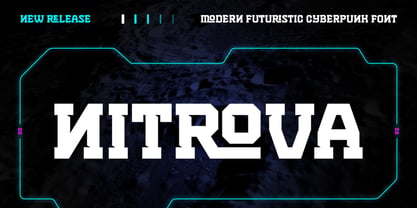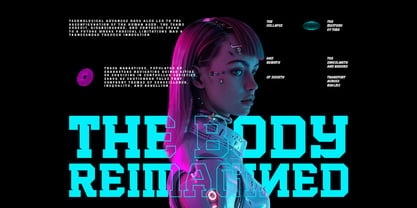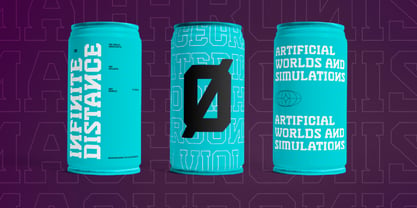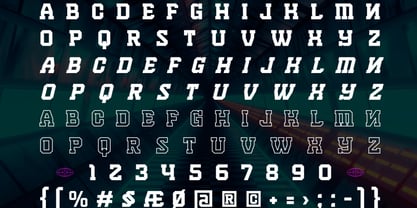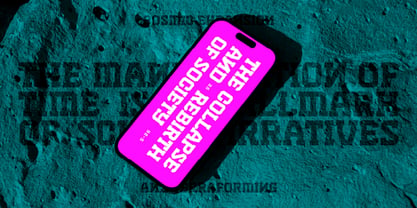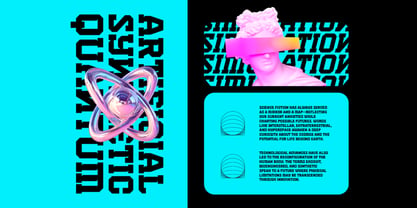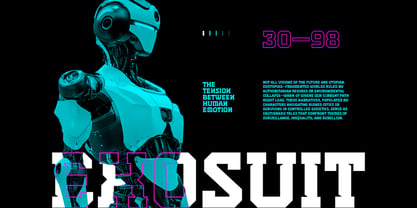
Nitrova
by Brandearth
The Nitrova Font Family was designed by Moch Rasjid Wiyono and published by Brandearth. Nitrova contains 3 styles and family package options. More about this family
Nitrova is a modern futuristic cyberpunk typeface featuring bold geometric letterforms with sharp cuts and strong varsity-inspired structure. The package includes Regular, Italic, and Outline styles, complete uppercase set, numerals, punctuation, and extended characters as shown in the preview. Nitrova is highly relevant for futuristic branding and high-energy visuals where bold presence is essential. Perfect for gaming titles, esports branding, tech product launches, sci-fi posters, sports campaigns, apparel graphics, and digital event promotions that require a strong, aggressive, and modern typographic voice.